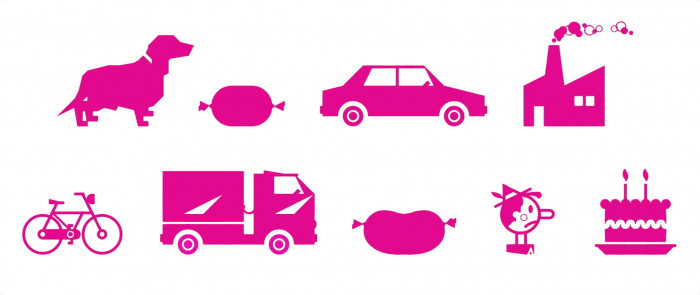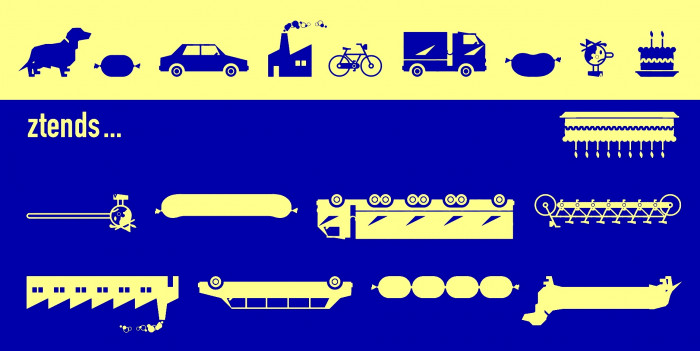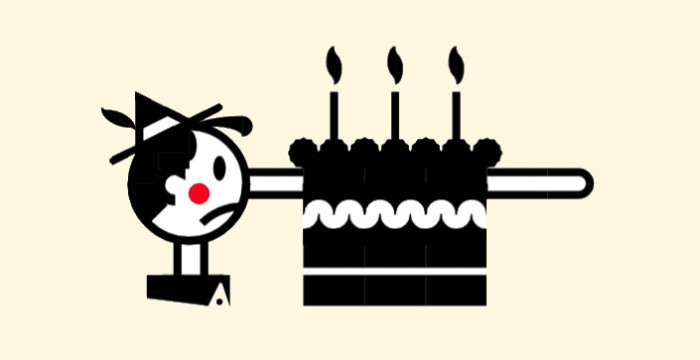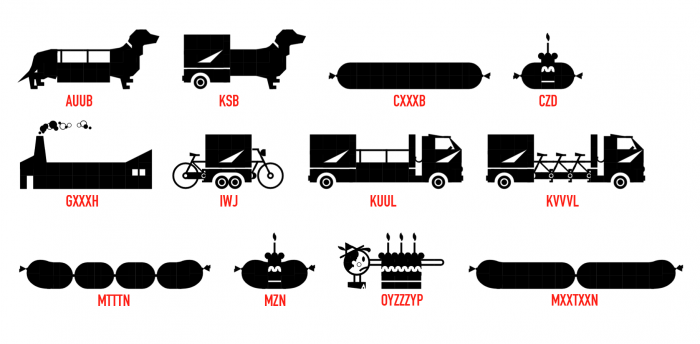
As you see, this is not a conventional font, it's more like a little picture game. Typing pairs of letters you can see some figures: AB = Dog, CD = Bockwurst, EF = Car, GH = Factory, IJ = Bike, KL = Truck, MN = Frankfurter, OP = Pinocchio, QR = Birthday Cake. But what happens if you write ASSSSB?... And with the others?... Try it and enjoy!
I would encourage you to try curious combinations, like this one: OYZZZYP (= Pinocchio lying about his age). I have found some very funny...
You can do MXTXN for linked frankfurters.
try AWSWSWSWSWSWB
Use QZZZZZZZZZZZZR for a long cake
Use IVVVVVVVVVVVVVVJ for a long bike